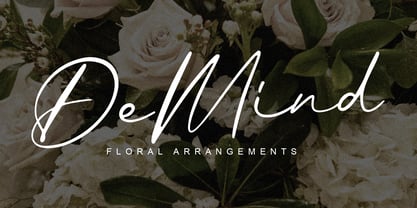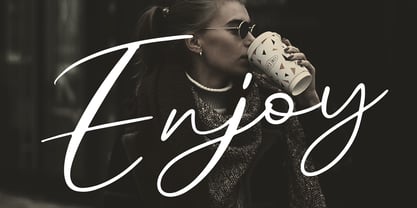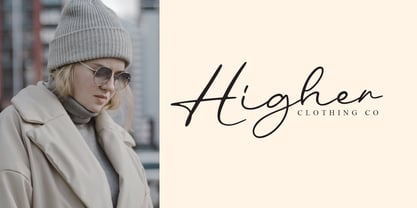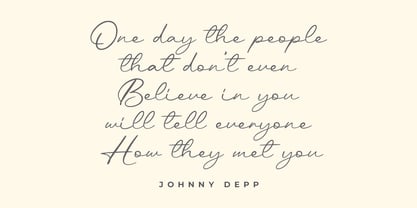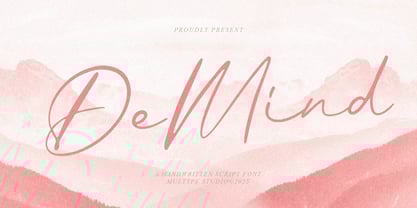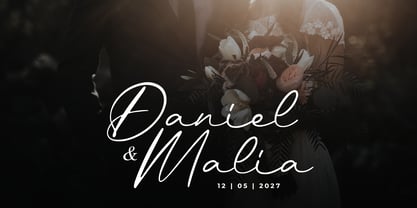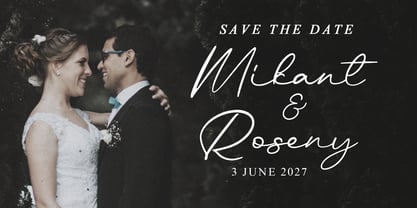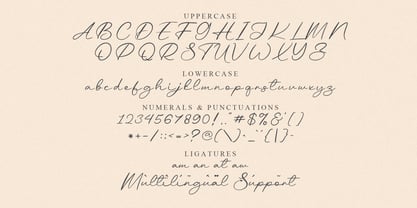
De Mind
De Mind is a stylish handwritten script font that blends modern elegance with a natural, personal touch. Designed for branding, wedding invitations, logos, social media posts, and feminine design projects, this font captures beauty and sophistication in every stroke. Its smooth curves and flowing lines create a graceful handwritten look that’s perfect for adding charm and personality to your typography. Ideal for: elegant branding, photography logos, fashion magazines, stationery, packaging design, and signature-style projects. Features: uppercase, lowercase, symbols, numbers, ligatures, multilingual support, works on PC and Mac, simple installation, accessible in (Adobe Illustrator, Adobe Photoshop, Adobe InDesign, and Microsoft Word), PUA encoded characters, fully accessible without additional design software, enjoy using our font! Hope you enjoy with our font!